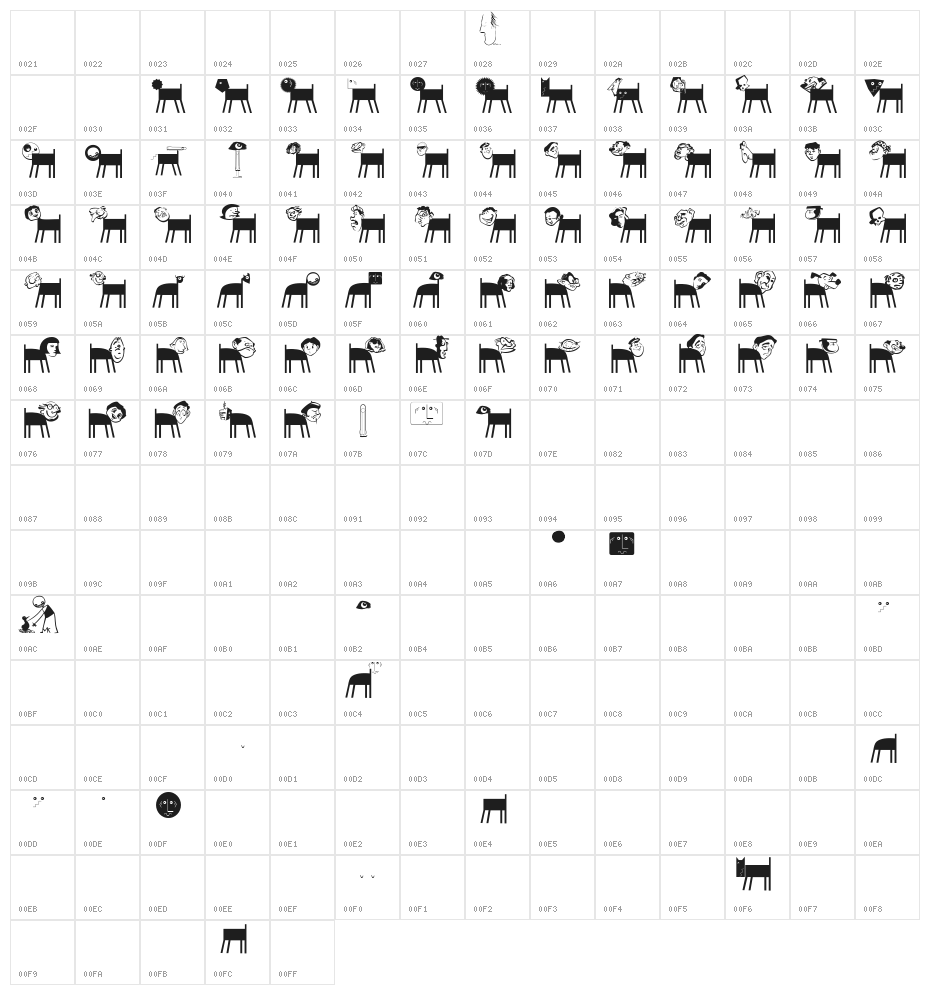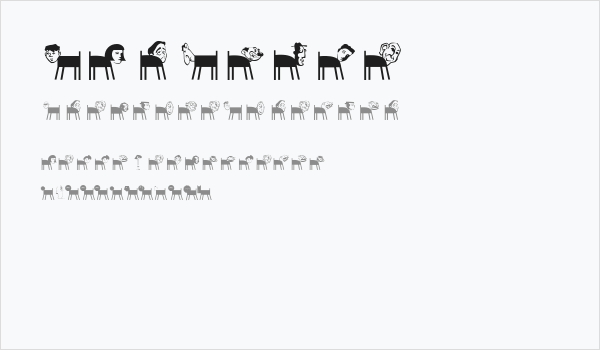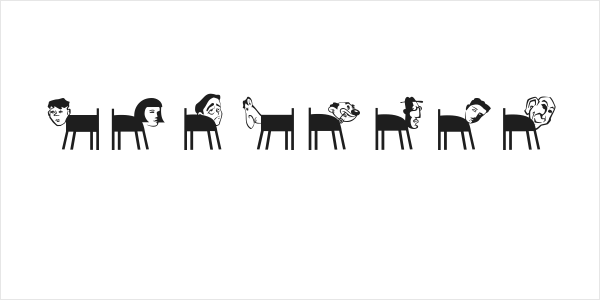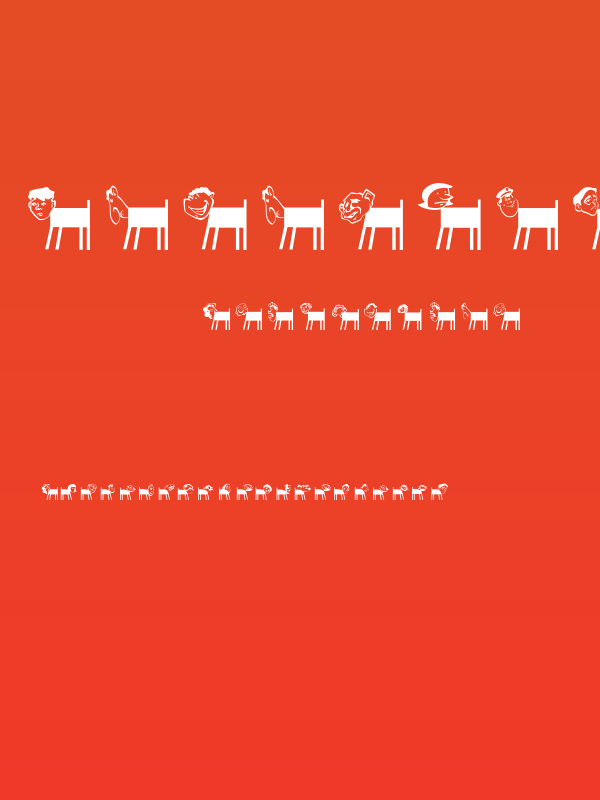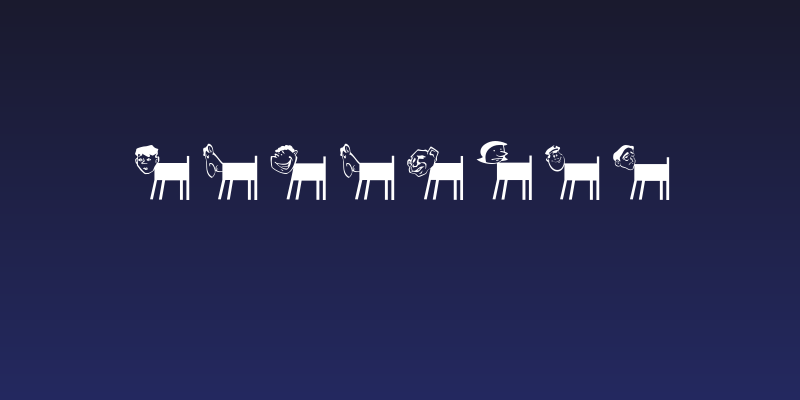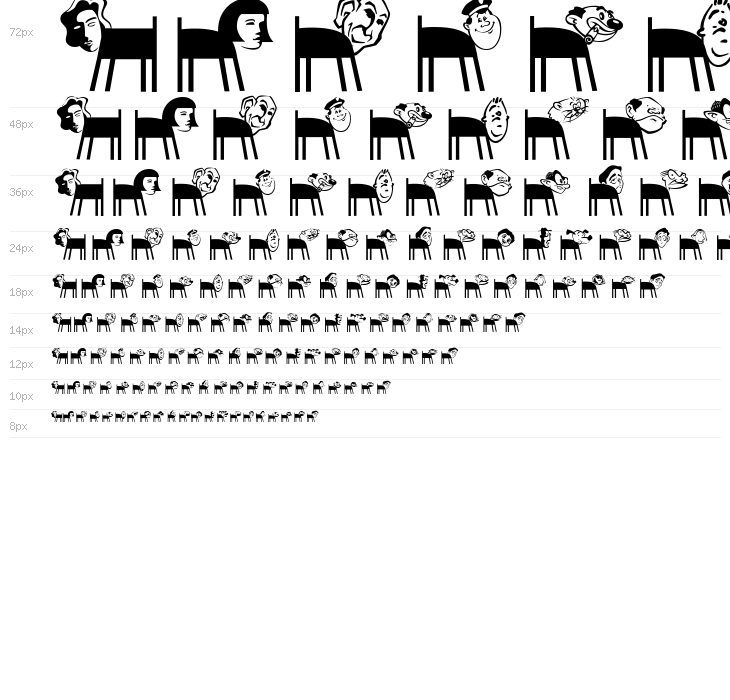
IhrHunde Font
IhrHunde Description
A highly decorative and whimsical font where each character is represented as a stylized dog with a unique, cartoonish human or abstract head. The body structure is consistent, with playful and exaggerated features for each glyph, making it visually engaging and humorous.
| Overall Style | Decorative, Whimsical, Playful |
| Use Case | Logos, Posters, Children's materials, Editorial design |
| Proposed Projects | Children's books, posters, greeting cards, playful branding, editorial illustrations. |